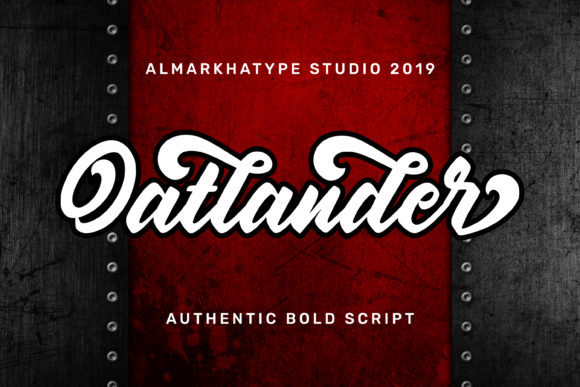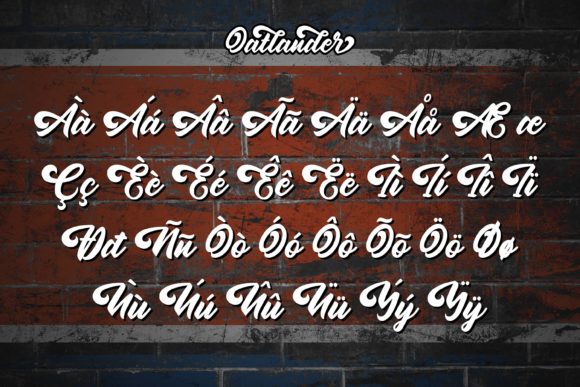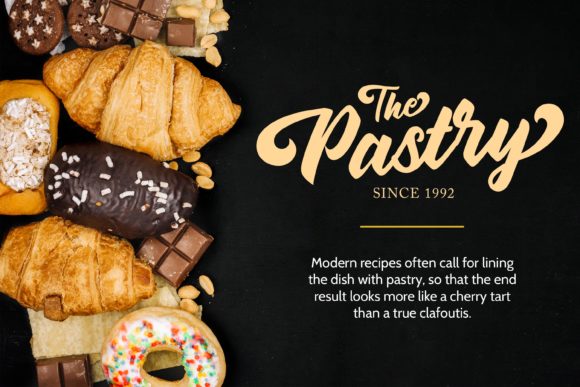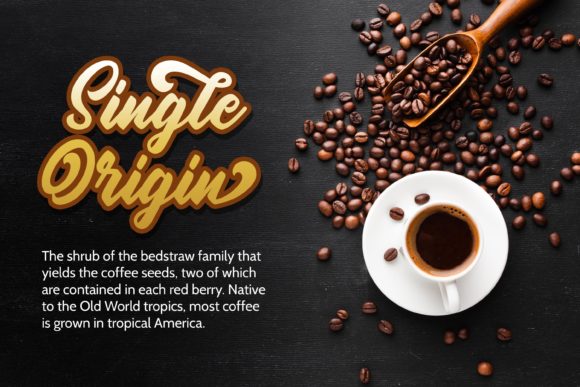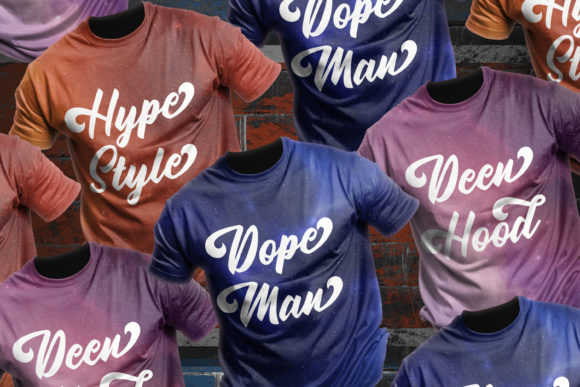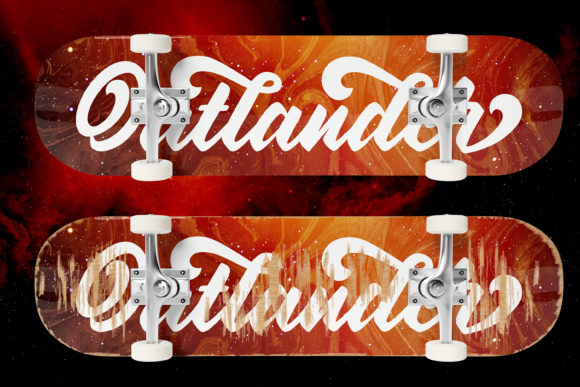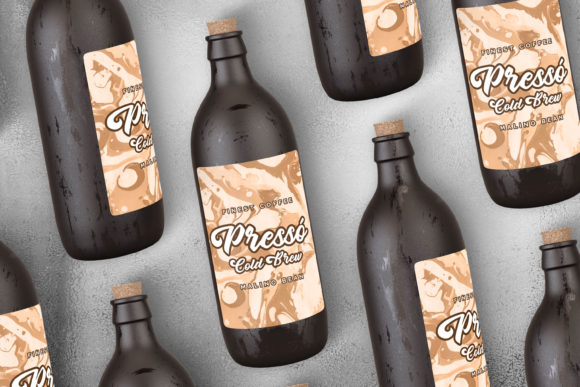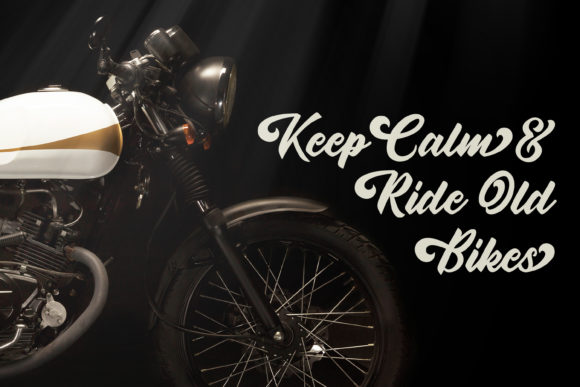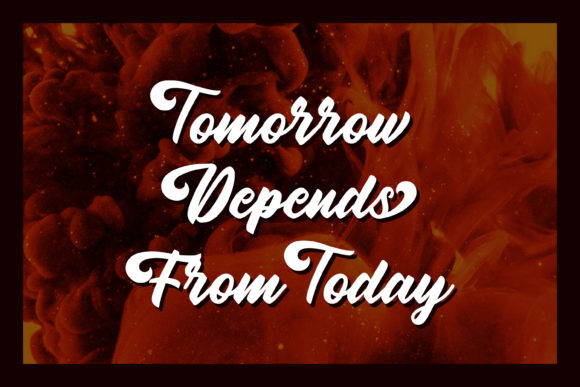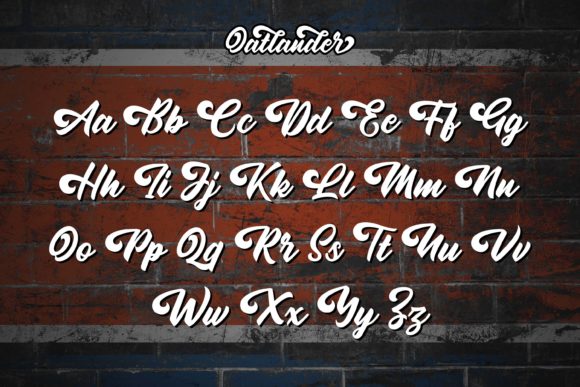
Oatlander Font
About Oatlander Font
Oatlander feels funky, fresh and bold! This extraordinary script has a friendly appearance which makes it great for advertising, branding and much more!